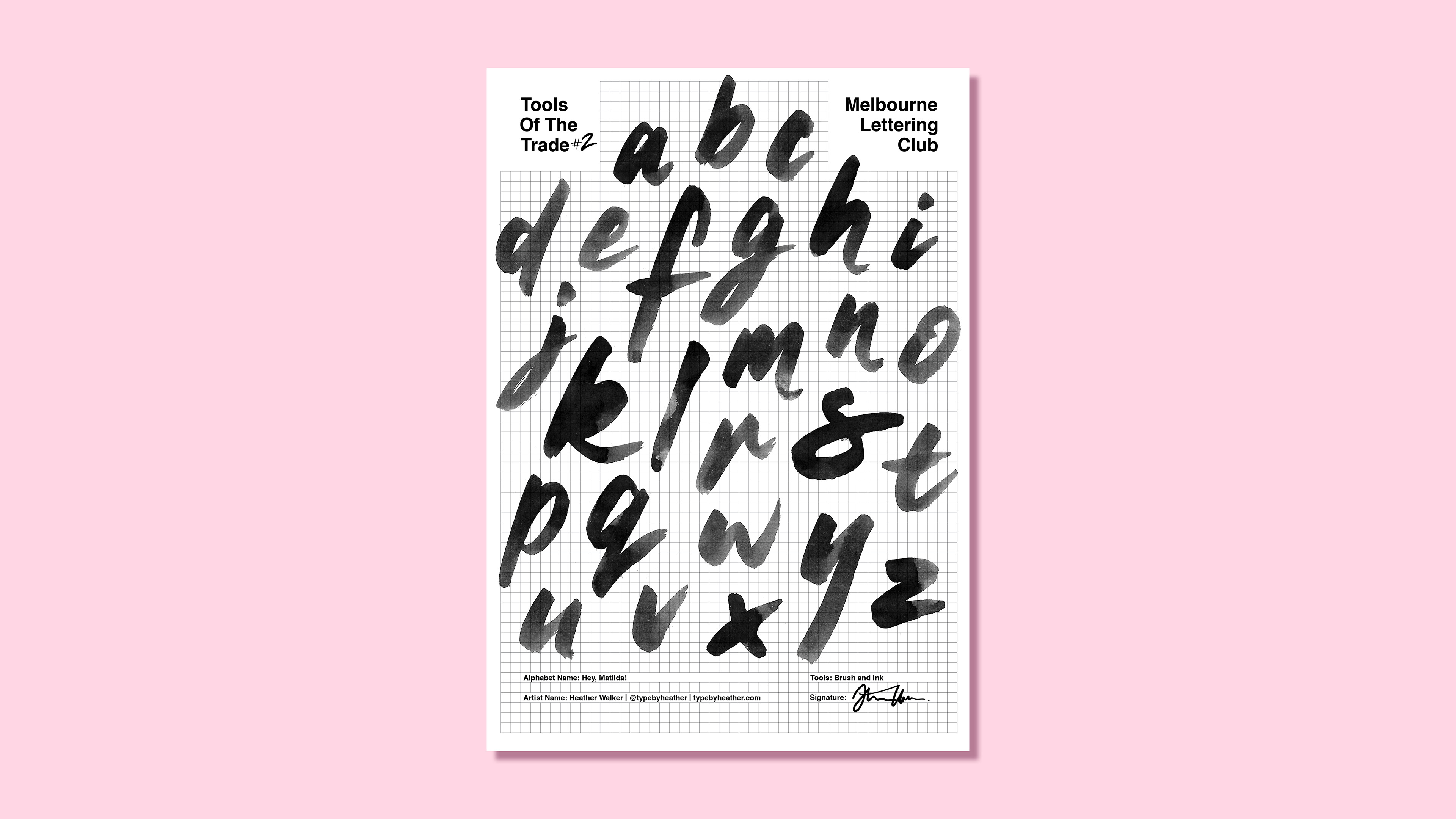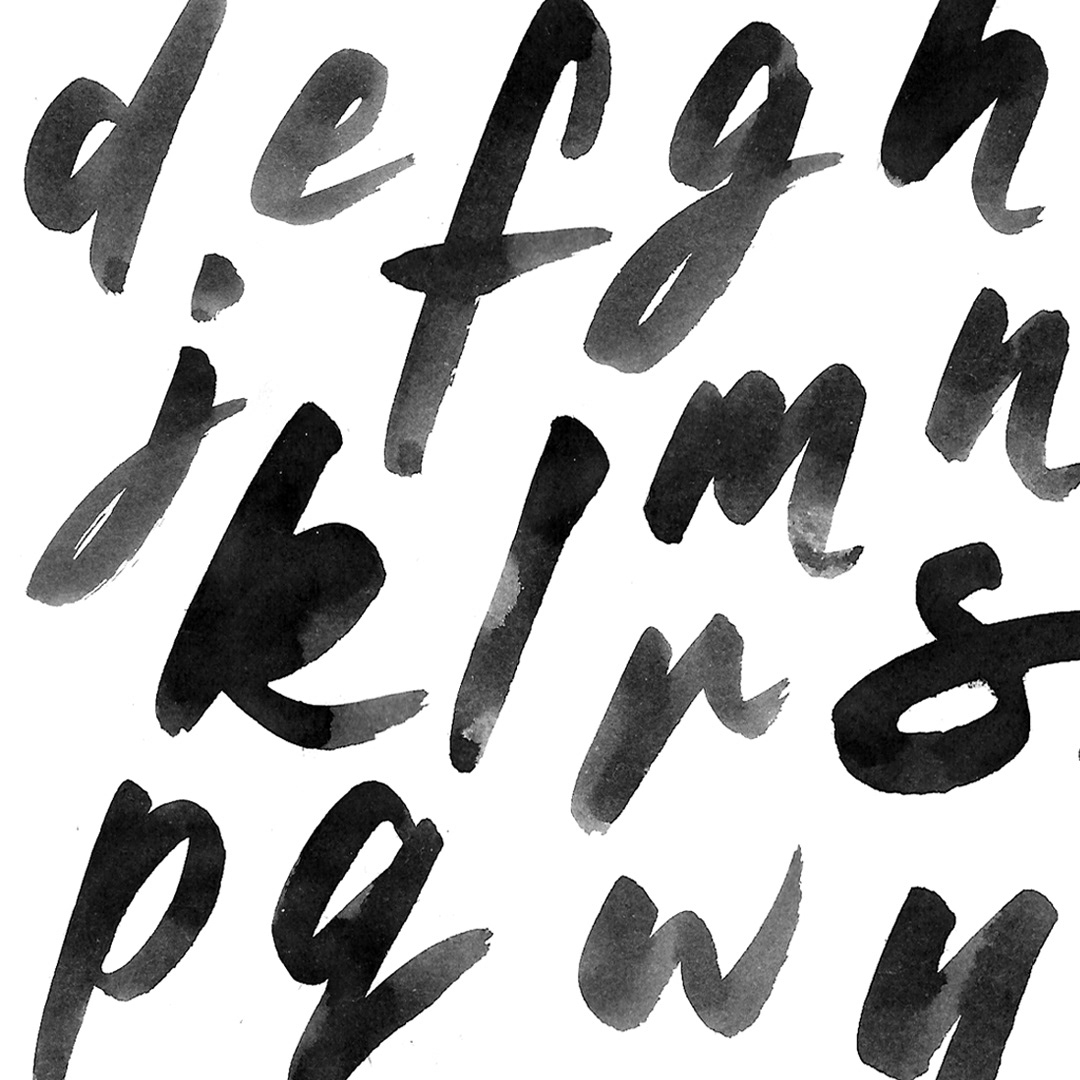
The second iteration of the Tools Of The Trade type and lettering exhibition hosted by the Melbourne Lettering Club at Black Cat, Fitzroy. The theme of this exhibition was brush tools. I created a full lowercase alphabet using just brush and ink, and then reworked digitally.